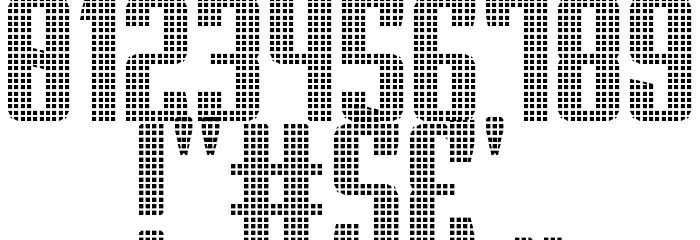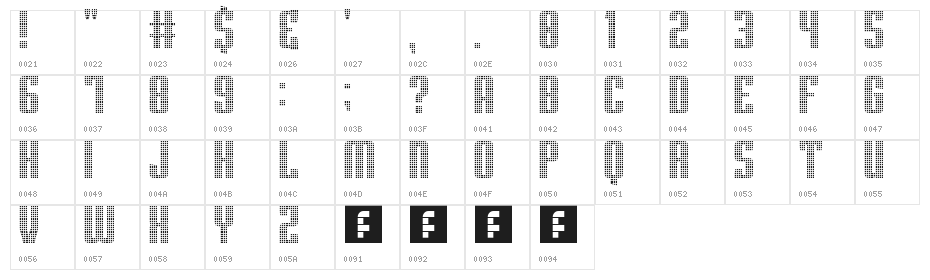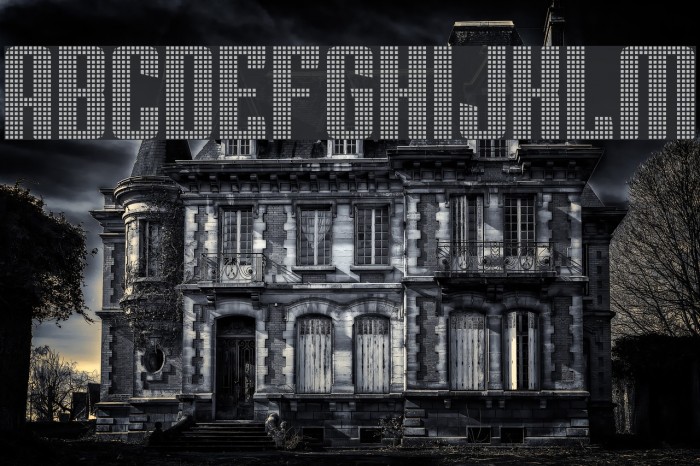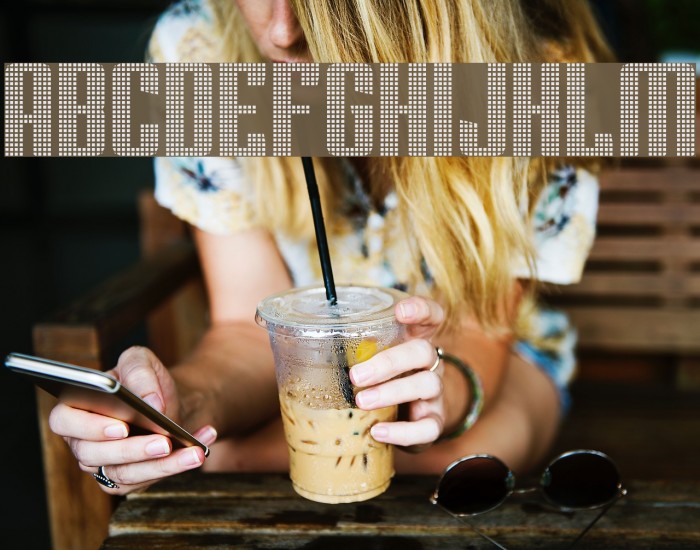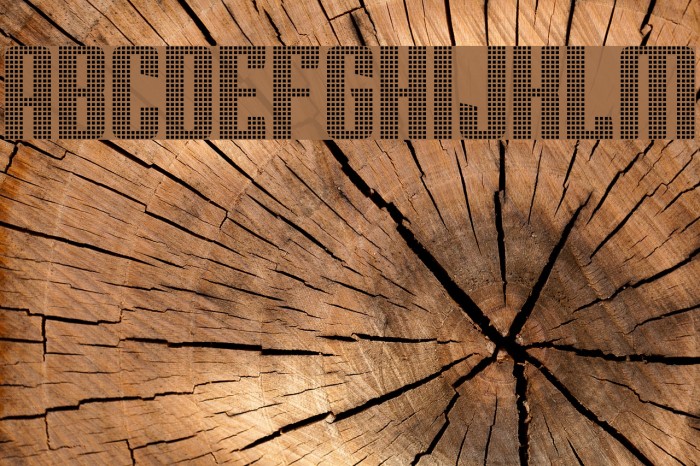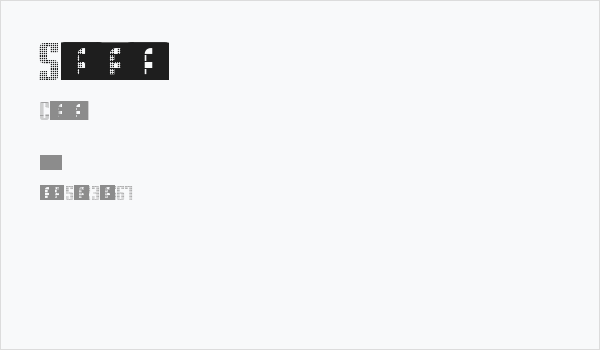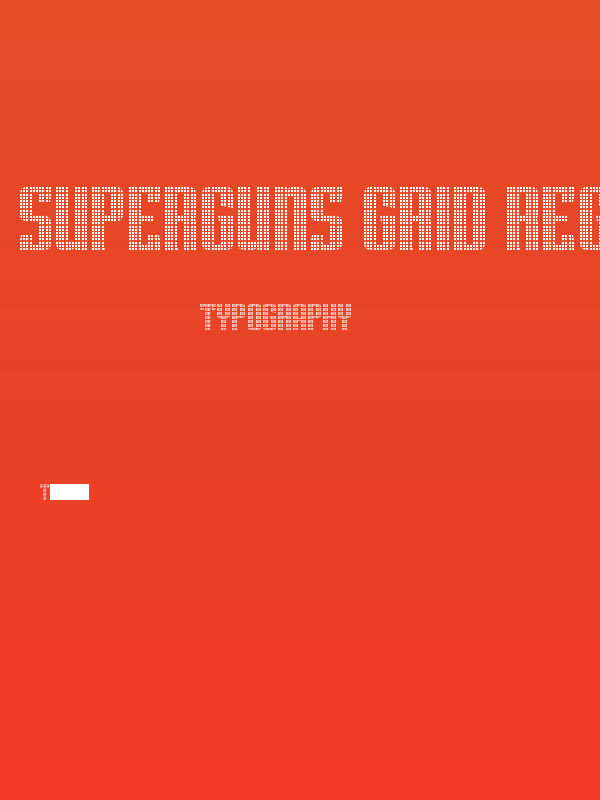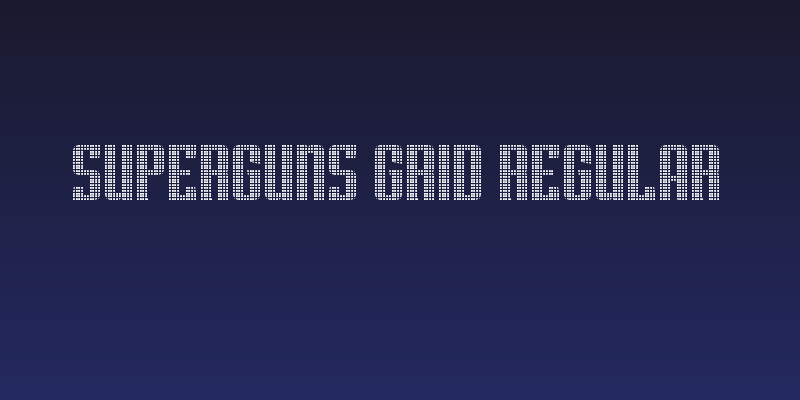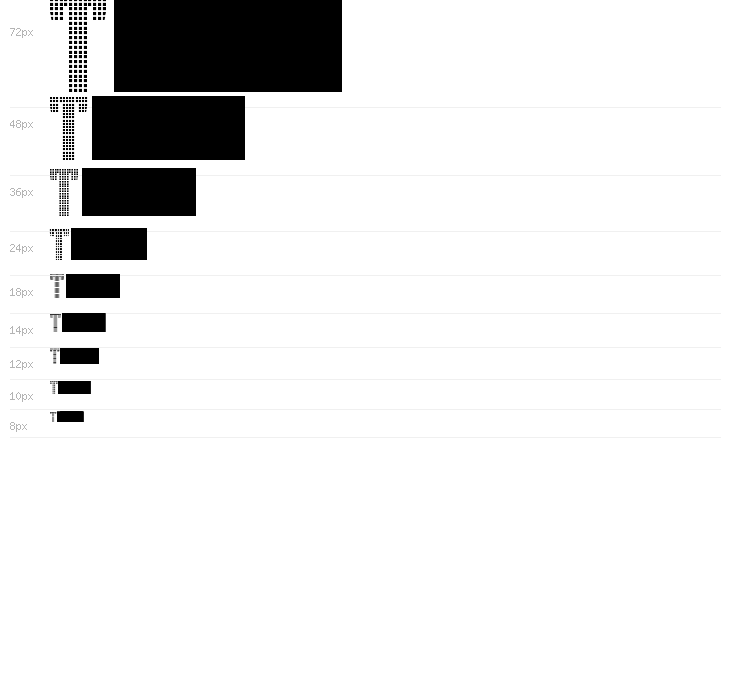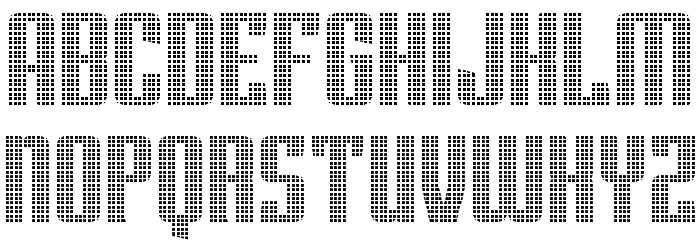
Superguns Grid Regular Font
Superguns Grid Regular Description
This font features a unique grid-based design, where each character is composed of small, evenly spaced squares. The geometric structure gives it a modern and digital appearance, reminiscent of pixel art or LED displays. The uniformity in the grid pattern across all characters creates a cohesive and structured look. Despite its decorative style, the font maintains legibility due to the clear distinction between each character. The uppercase and lowercase letters, as well as numbers and special characters, all adhere to this grid format, ensuring consistency throughout. This font is ideal for projects that require a futuristic or tech-inspired aesthetic.
| Use Case | Logos, Headlines, Digital displays |
| Proposed Projects | Ideal for digital art, tech-themed designs, video game graphics, and futuristic branding. |